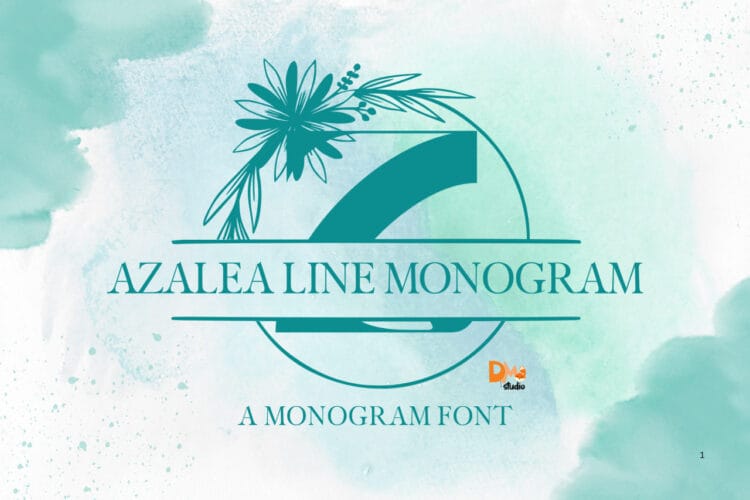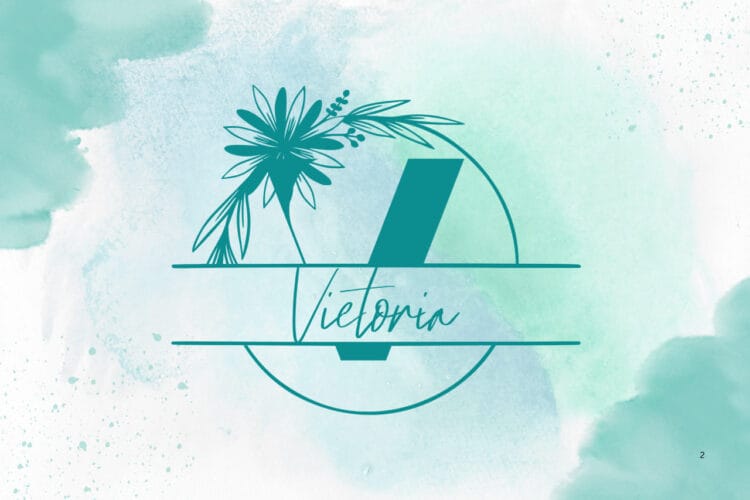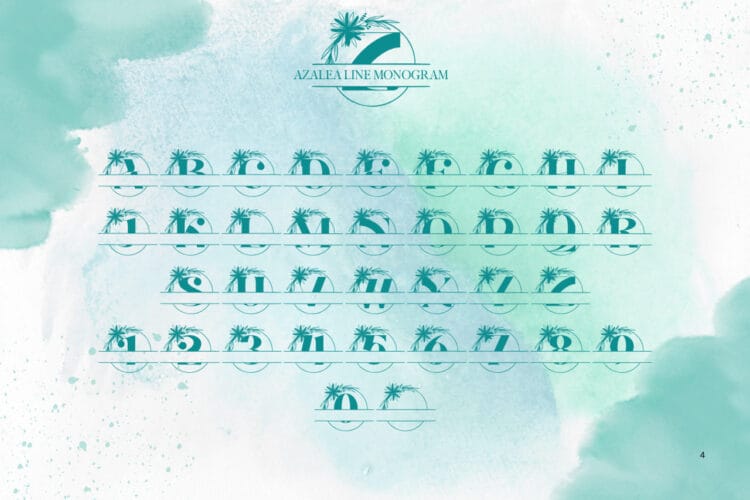
Meet Azalea, the Monogram Line Font
Azalea Monogram Line Font turns initials into elegant symbols that read fast. The lines look crisp and refined. The spacing feels balanced and calm. Because counters stay open, tiny tags still print sharp. Use it for wedding suites, boutique branding, keepsake gifts, and premium packaging. Moreover, it pairs beautifully with soft serifs and modern sans. Therefore, your layouts feel upscale without extra work.
Where this Monogram Line Font shines
Set single, double, or triple initials for logos and seals. Then add slim borders, laurel rings, or geometric frames to echo the line work. Since proportions favor symmetry, polished compositions come together in minutes. As a result, your thumbnails stand out and your listings stay consistent across platforms.
Fast setup, refined results
Design tips for the Monogram Line Font
Keep initials large and let negative space breathe. Pair headline monograms with a quiet serif or a humanist sans for body text. Meanwhile, add micro shadows, thin inner strokes, or subtle emboss for definition. Because the structure is airy, metallic accents and textured papers raise perceived value. Try pearl with charcoal, or blush with espresso for a warm, luxe mood.
Why creators choose this monogram line font
You want elegance that sells quickly and still reads at a glance. Azalea delivers. It grabs attention in thumbnails, shortens production time, and keeps your brand voice cohesive. However, keep copy brief and let the monogram lead. Consequently, every piece feels intentional, premium, and memorable.
Creative ideas with Azalea
Press wax seals for invitations. Then engrave luggage tags and compact mirrors. Also, design submarks, ribbon tags, and pattern tiles for full brand kits. Next, style menu headers and favor labels to match. Finally, schedule a coordinated drop before peak dates to lift conversion and repeat sales.